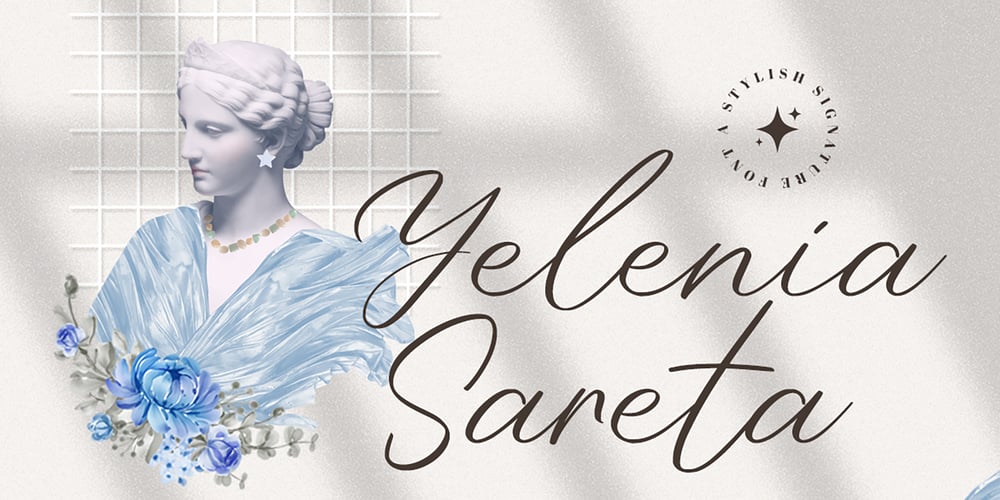
Yelenia Sareta Font Family was designed by Tezar Tantular and published by Keristyper Studio. Yelenia Sareta contains 1 styles and family package options. Introducing a new Stylish Signature font, Yelenia Sareta! This Font is perfect for elegant logos, upscale packaging, wedding stationery, websites, and any other projects requiring a handwritten and luxurious touch.Yelenia Sareta Font multilingual support: Afrikaans, Albanian, Catalan, Danish, Dutch, English, Estonian, French, Finnish, German, Icelandic, Indonesian, Italian, Malay, Norwegian, Portuguese, Spanish, Swedish, Zulu, and many more.What’s Included : Standard & Multilingual glyphs Ligature Works on PC & Mac Simple installations Accessible in Adobe Illustrator, Adobe Photoshop, Adobe InDesign, and even work on Microsoft Word. Hope you enjoy our font!